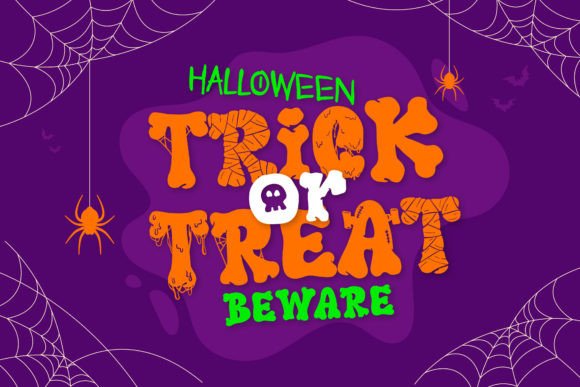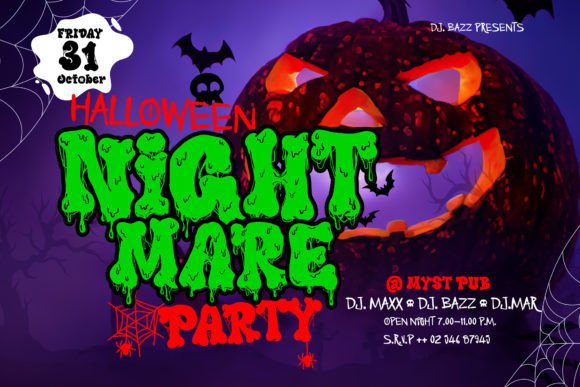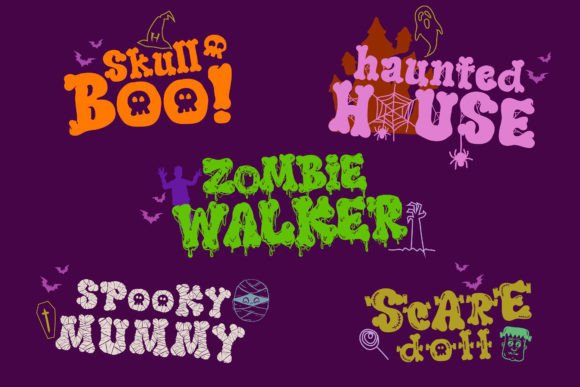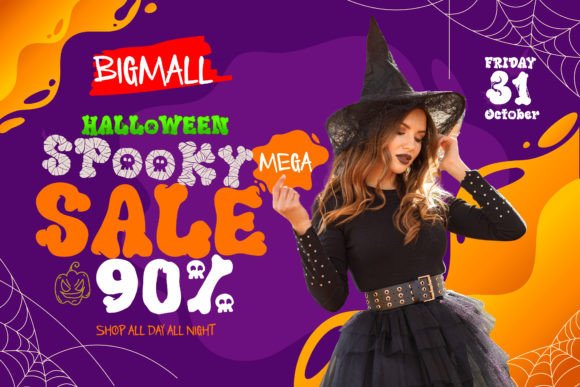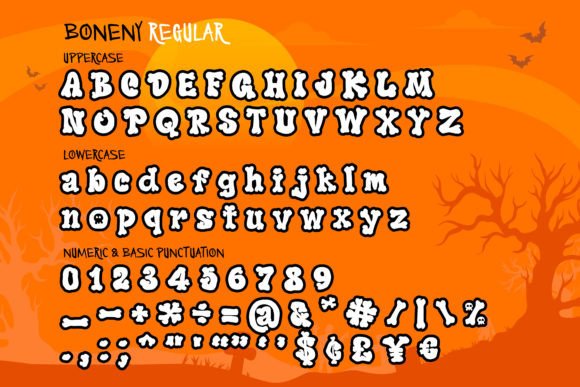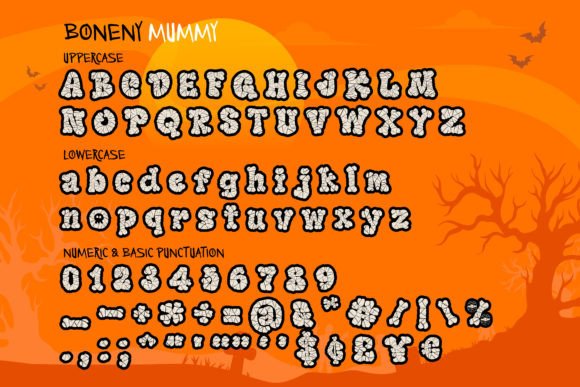
Introducing Boneny Font: The Ultimate Decorative Font for Spooky Designs
Are you looking for a font that can add a touch of spookiness and fun to your designs? Look no further than Boneny Font! This uniquely shaped decorative font is perfect for Halloween designs, October parties, and any other project that requires a playful and eerie feel. In this article, we’ll dive into the world of Boneny Font and explore its features, benefits, and uses.
What is Boneny Font?
Boneny Font is a font family that is designed to bring a sense of fun and quirkiness to your designs. Its unique shape and playful style make it an ideal choice for designers and crafters who want to create eye-catching and memorable projects. Whether you’re working on a Halloween-themed design, a party invitation, or a craft project, Boneny Font is sure to add a touch of personality and whimsy.
Features of Boneny Font
So, what makes Boneny Font so special? Here are some of its key features:
- Unique Shape: Boneny Font has a distinctive shape that sets it apart from other fonts. Its letters are designed to be playful and quirky, making it perfect for designs that require a touch of whimsy.
- Decorative Style: This font is a decorative font, which means it’s designed to add a touch of elegance and sophistication to your designs.
- Halloween-themed: Boneny Font is perfect for Halloween designs, with its spooky and playful style evoking the spirit of the holiday.
Benefits of Using Boneny Font
So, why should you use Boneny Font in your designs? Here are some of the benefits of using this font:
- Adds Personality: Boneny Font adds a touch of personality and whimsy to your designs, making them more engaging and memorable.
- Perfect for Halloween Designs: This font is specifically designed for Halloween designs, making it a great choice for designers who want to create spooky and fun projects.
- Versatile: Boneny Font can be used for a wide range of projects, from party invitations to craft projects.
- Easy to Read: Despite its decorative style, Boneny Font is easy to read, making it perfect for designs that require a clear and concise message.
Uses of Boneny Font
So, what can you use Boneny Font for? Here are some ideas:
- Halloween Designs: Boneny Font is perfect for Halloween designs, including party invitations, decorations, and costumes.
- Party Invitations: This font is great for party invitations, adding a touch of whimsy and fun to your designs.
- Craft Projects: Boneny Font can be used for a wide range of craft projects, from scrapbooking to card making.
- Social Media Graphics: This font can be used to create eye-catching social media graphics, including Facebook posts, Instagram stories, and Twitter headers.
In conclusion, Boneny Font is a fun and uniquely shaped decorative font that’s perfect for Halloween designs, October parties, and any other project that requires a playful and eerie feel. With its easy-to-use style, versatile features, and wide range of uses, Boneny Font is a great addition to any designer’s toolkit. So why not give it a try and see the amazing results for yourself?